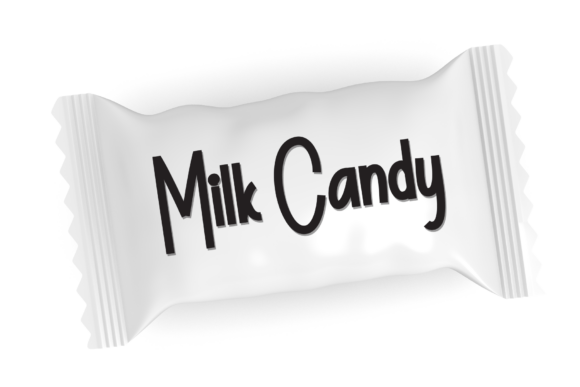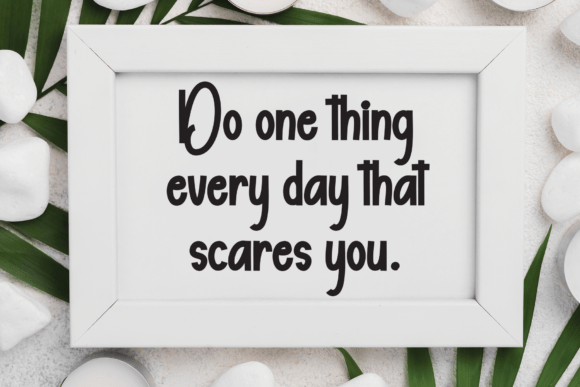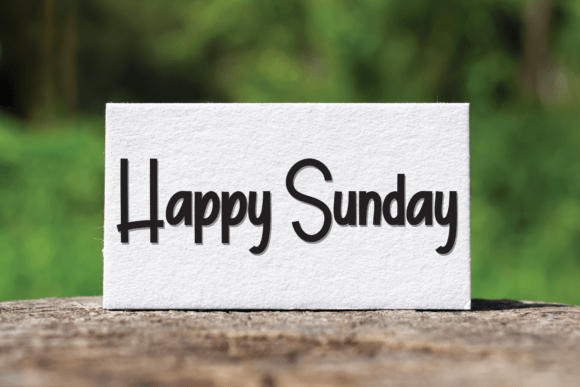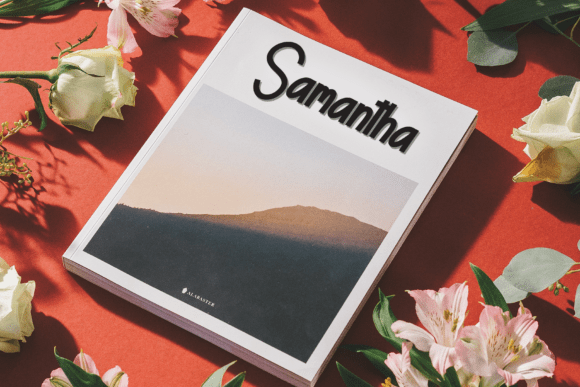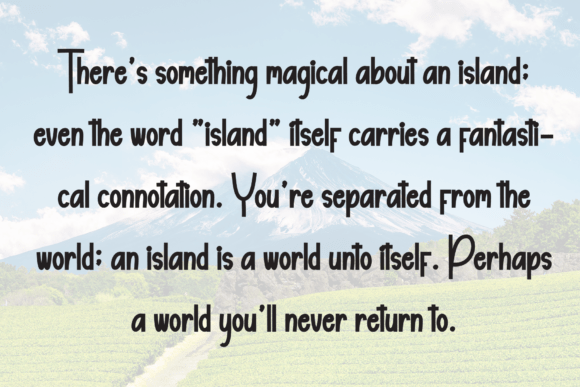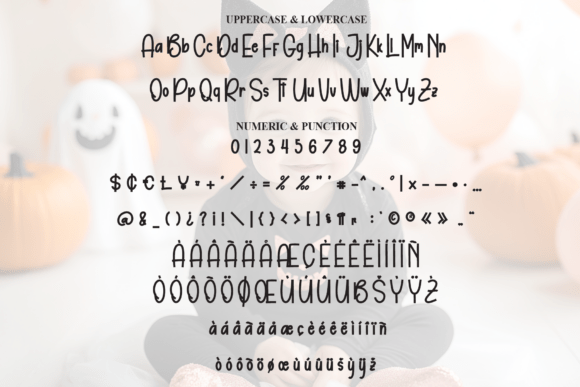
Introducing the Sweetest Addition to Your Design Arsenal
As designers, we’ve all been there – stuck on a project, struggling to find the perfect font to convey the emotions and tone we envision. That’s where the magic of Baby Halloween Font comes in. This delightful, handwritten display font is more than just a pretty face; it’s a key to unlocking the perfect balance of playfulness and sophistication in your designs.
Baby Halloween Font is the perfect companion for any creative project that requires a dash of whimsy and charm. Whether you’re crafting wedding invitations, designing cards, or simply looking to add a touch of fun to your digital art, this font is sure to deliver. With its friendly persona and charming aesthetic, Baby Halloween Font is an invaluable addition to any designer’s toolkit.
Baby Halloween Font Key Features
- Font Style: Hand-drawn, playful, and whimsical, making it perfect for Halloween-themed designs.
- Unique Characteristics: Distinctive, childlike letterforms with intricate details, creating a charming and festive atmosphere.
Baby Halloween Font Review
Overall, I think Baby Halloween Font is a fun, playful addition to any design project. Here are some of its highlights:
- ✨ It’s super easy to use – the font is straightforward and uncomplicated.
- ✨ The design is adorable, making it perfect for Halloween-themed projects.
- ✨ The font comes in a variety of styles, from bold to cursive, which adds a lot of versatility.
- ⚠️ The font may be a bit too simplistic for more complex design projects.
- ⚠️ Some users may find the design too childish or cutesy.
- ⚠️ The font may not be suitable for corporate or professional branding.
Overall, I think Baby Halloween Font is a great choice for designers who want to add a playful touch to their projects. While it may not be the best fit for every project, it’s definitely a fun and creative option to consider.
Tips for Getting the Most Out of Baby Halloween Font
Use Baby Halloween Font to create spooky and playful designs for Halloween-themed invitations, decorations, and party materials. Experiment with different font sizes and styles to add emphasis to your text. You can also combine Baby Halloween Font with other fonts to create a unique and eye-catching design.
Some common use cases for Baby Halloween Font include:
- Halloween party invitations
- Spooky decoration signs
- Children’s Halloween costumes and accessories
- Halloween-themed social media posts and graphics